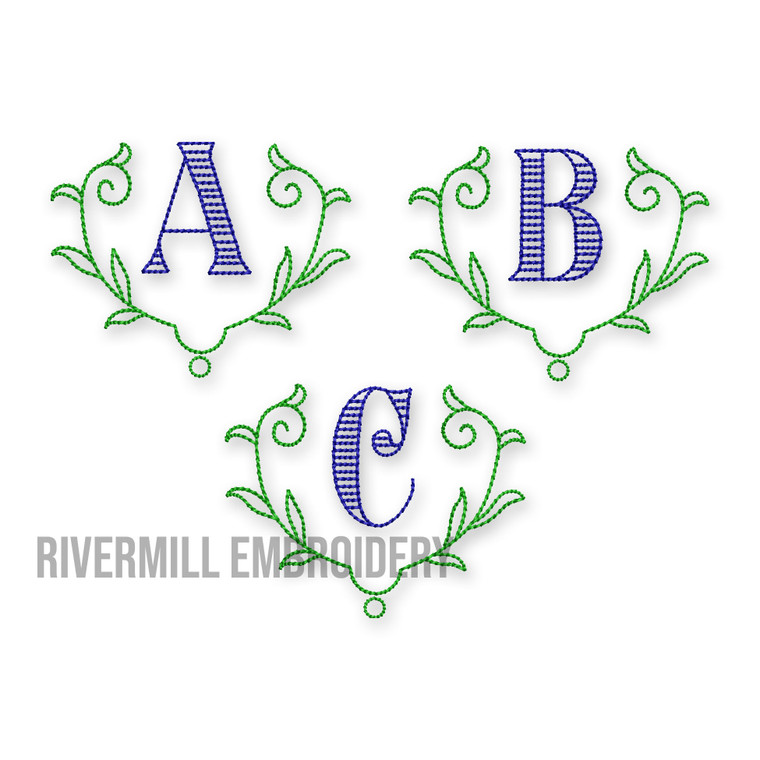
Aston Monogram Machine Embroidery Font Alphabet
This set comes with 3 sizes - 2, 2 1/2", and 3" tall.  Both the frame and letters are done in a vintage style stitch so they sew out super quick!